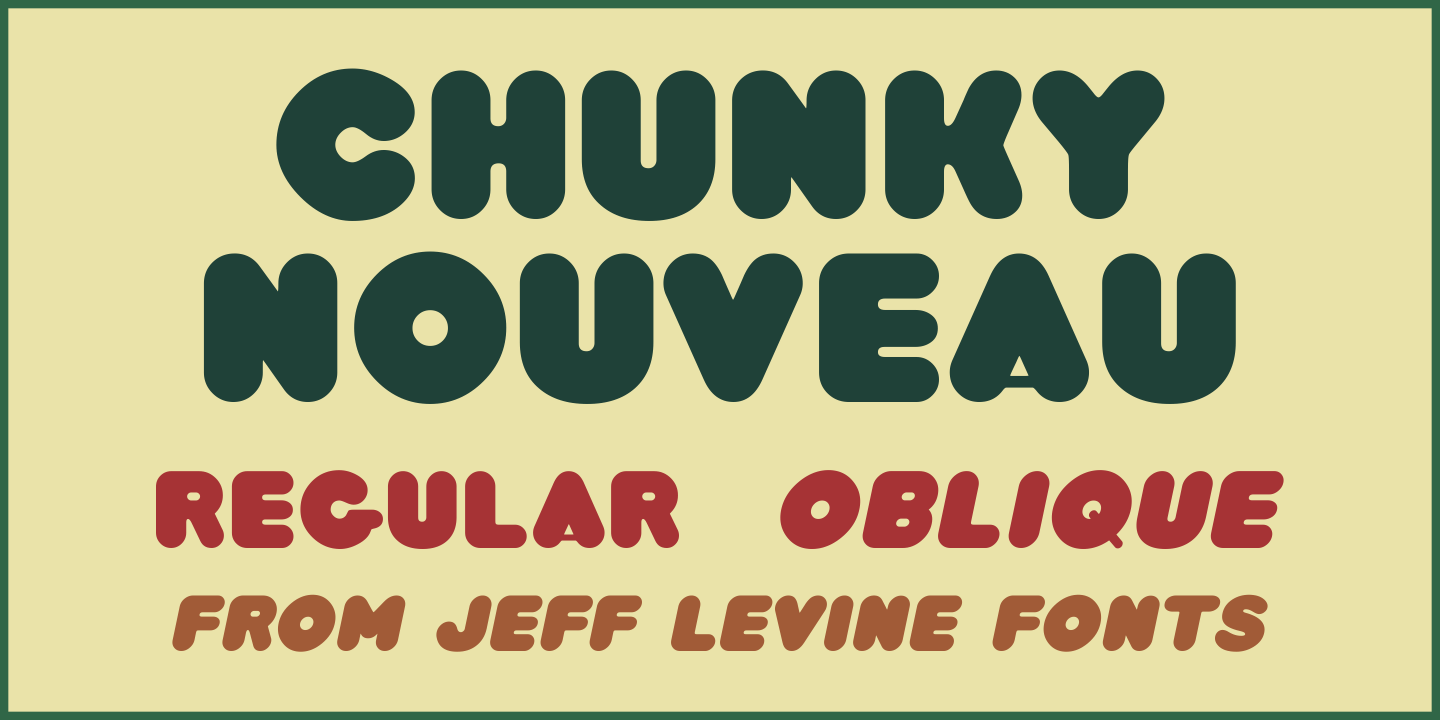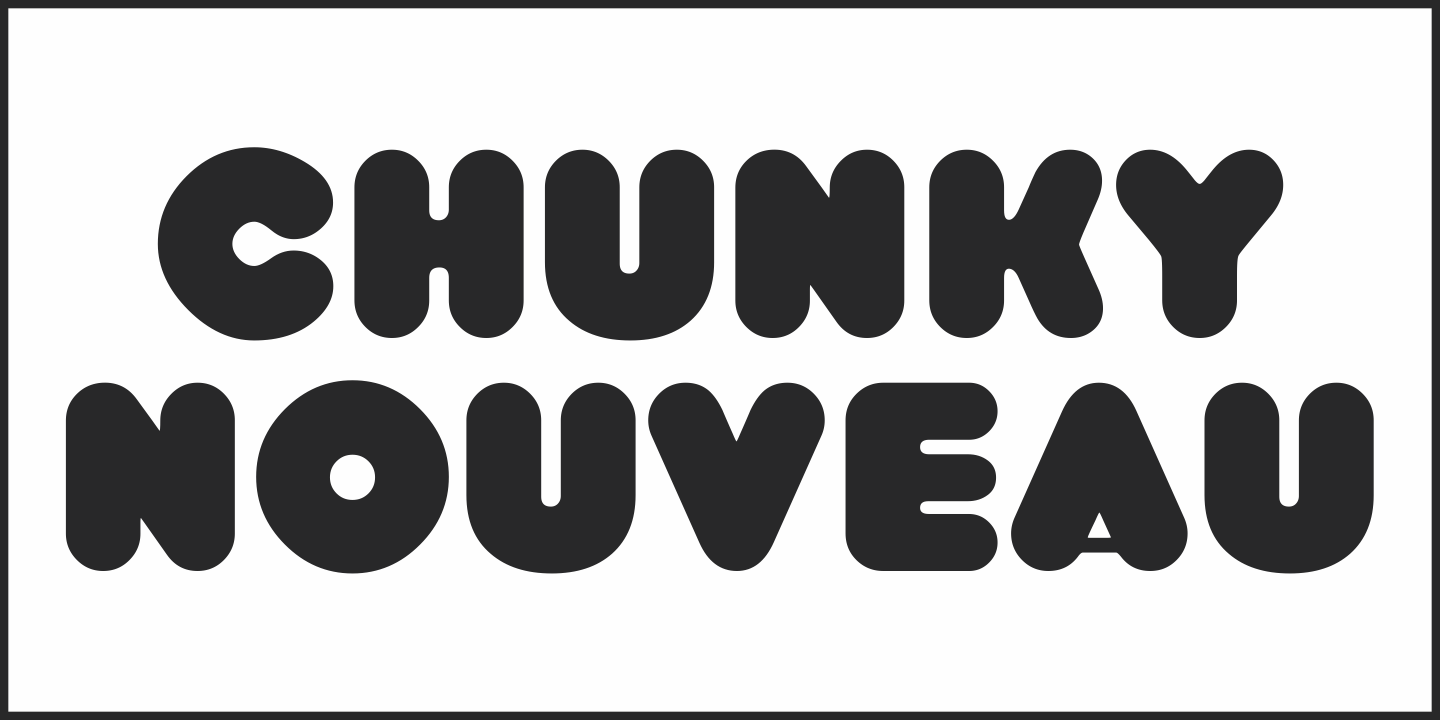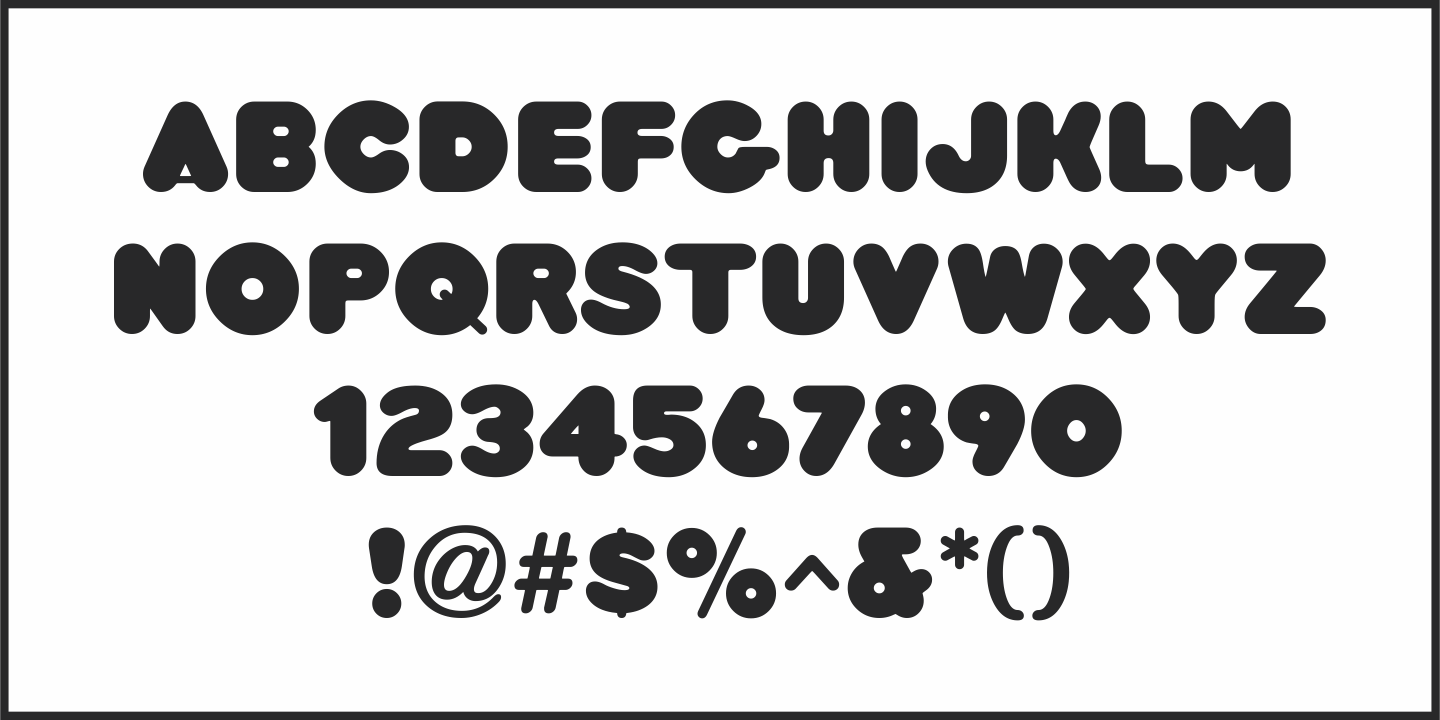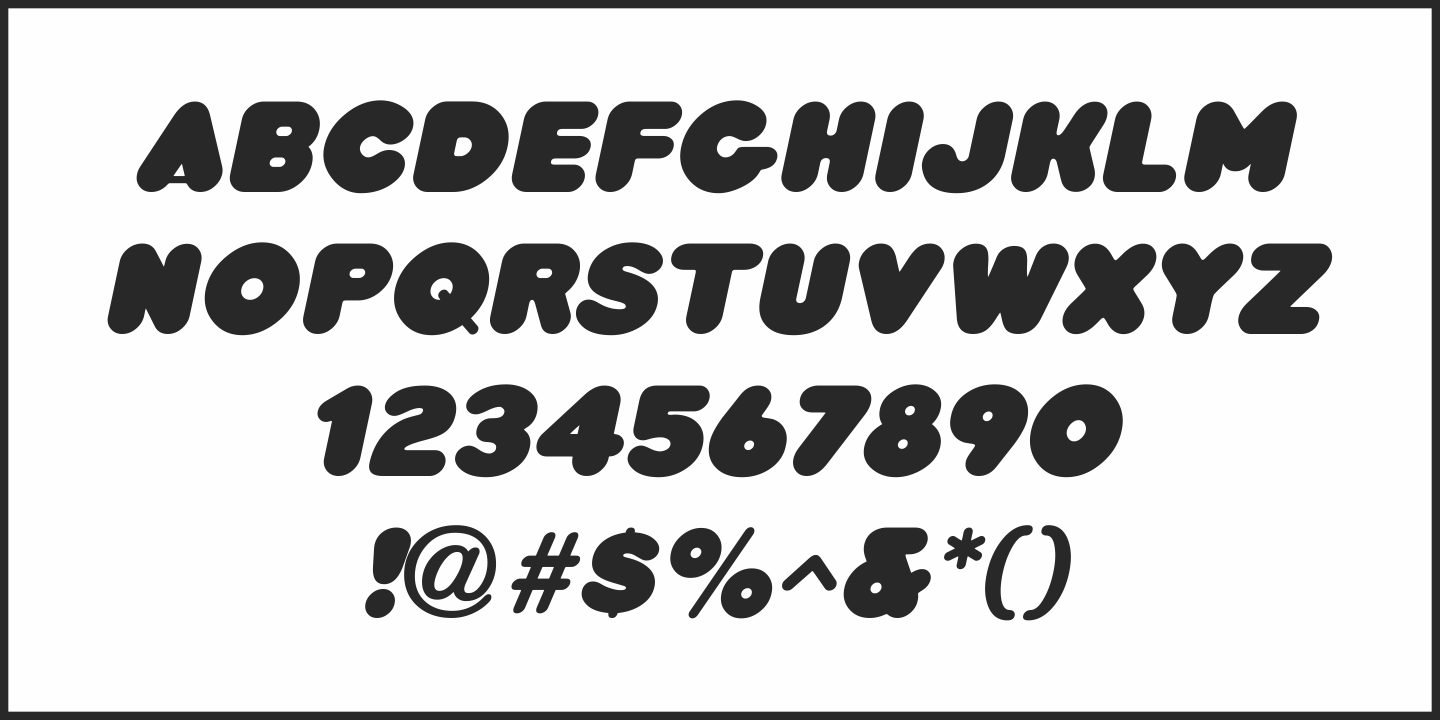
Chunky Nouveau
Chunky Nouveau JNL was inspired by a circa-1928 water applied decal for the Top Most Insulated Jug. The plump, rounded hand lettering of the brand name was given a slightly thicker treatment to create a more poster-oriented display design.
Chunky Nouveau JNL is available in both regular and oblique versions.